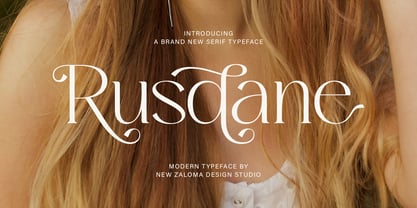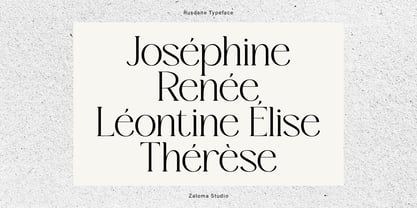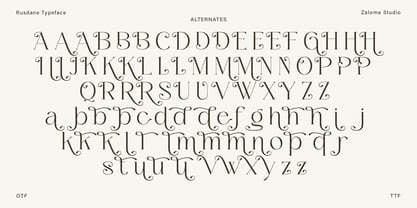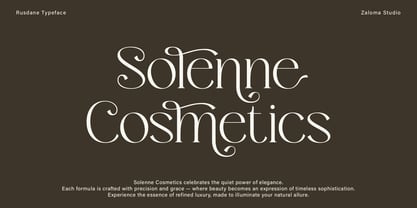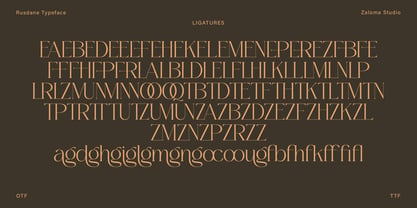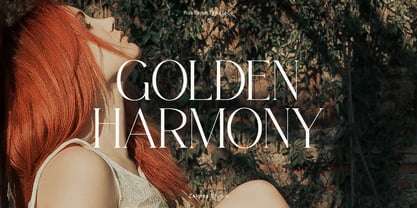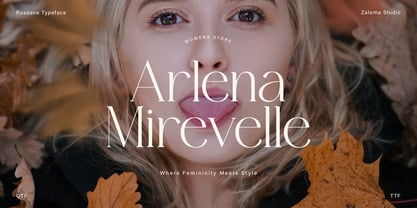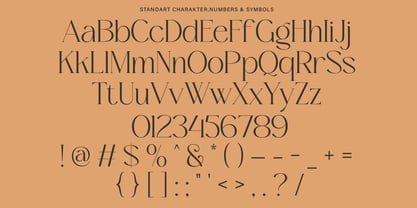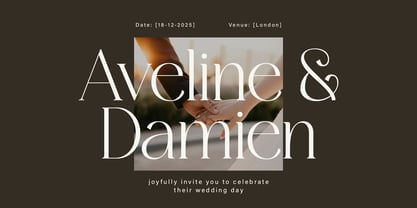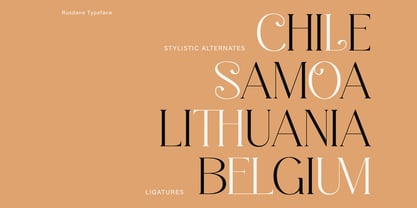
Rusdane
by Zaloma Studio
The Rusdane Font Family was designed by Mahyudi and published by Zaloma Studio. Rusdane contains 1 styles. More about this family
Rusdane is a modern serif typeface that blends graceful curves with refined, decorative details. Designed for high-end branding and editorial elegance, Rusdane offers a luxurious presence through its flowing strokes and sophisticated character forms. Perfect for fashion labels, beauty brands, wedding invitations, and premium packaging, this typeface elevates any design with its timeless charm and expressive serif style. Crafted with a balance of delicacy and modern flair, Rusdane stands out as a statement font for designers seeking elegance and distinction.